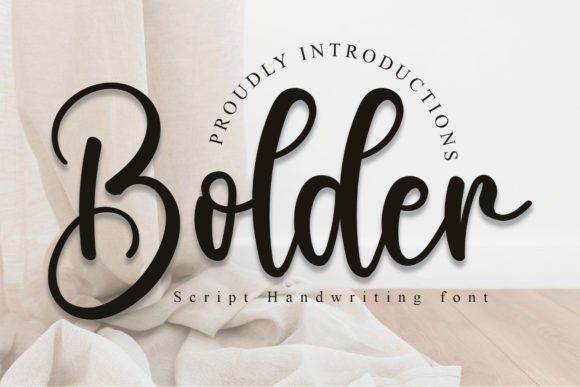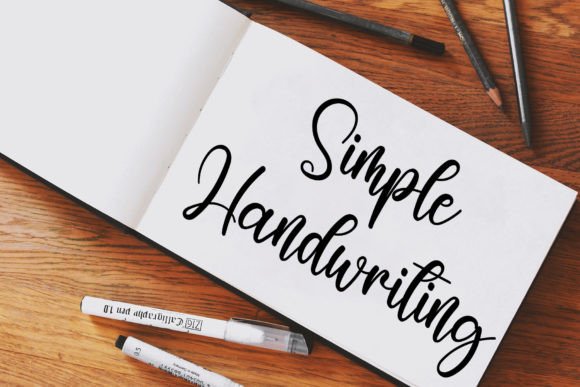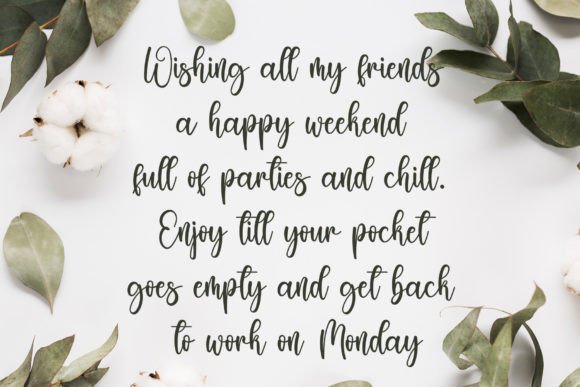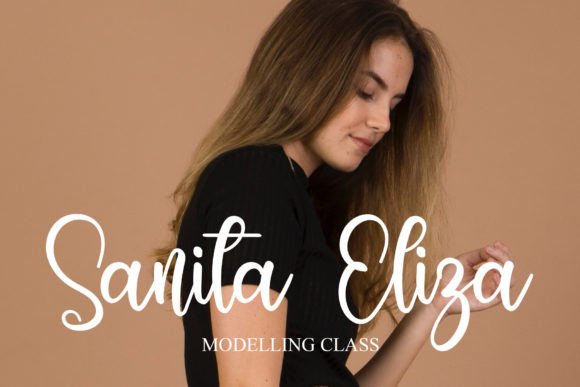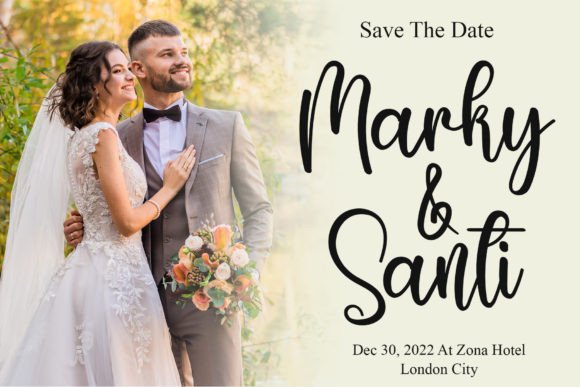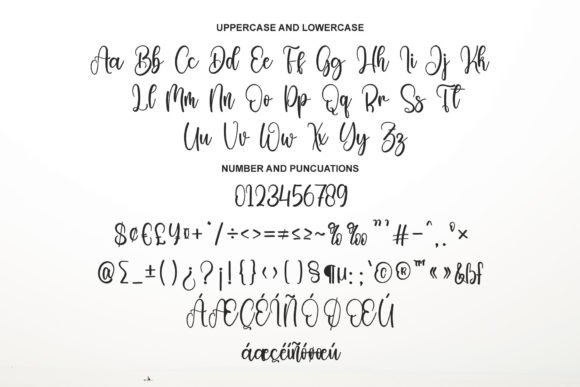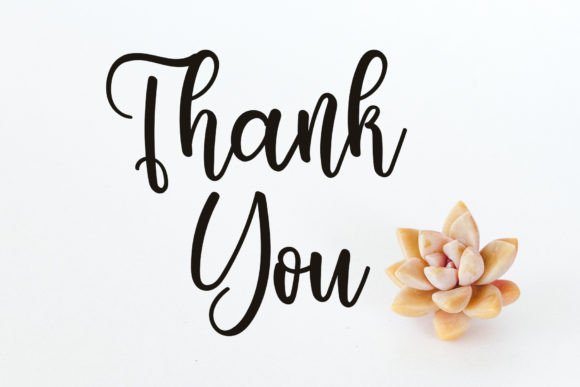
Bolder Font
About Bolder Font
Bolder font is a stylish handwritten typeface that beautifully combines a contemporary vibe with timeless classic calligraphy. Its impeccable form and well-balanced letterforms make it an excellent choice for designers seeking to enhance the elegance and visual appeal of their projects.
Stylish and Contemporary Handwriting
The charm of Bolder font lies in its modern yet classic character. Designed with varied strokes and balanced curves, it exudes a confident and polished look. This font works wonderfully for projects that require a refined handwritten style without sacrificing a contemporary feel.
Versatile Uses for Bolder Font
Bolder font suits a wide variety of creative applications, such as:
• Logo and branding design
• Wedding invitations and stationery
• Social media graphics and posts
• Packaging, posters, and promotional materials
Its flexibility allows it to seamlessly fit both digital and print projects, making it a versatile asset for any designer.
Elevating Your Designs with Bolder Font
Using Bolderfont adds sophistication and style to your work. Its handcrafted look fosters a personal connection, making your designs more memorable and unique. Whether you’re designing for an elegant brand or a special event, this font adds that perfect balance of tradition and modernity.
Summary
In summary, Bolderfont is a stylish handwritten typeface inspired by timeless calligraphy. Its contemporary and balanced design makes it ideal for logos, invitations, branding, and various other creative projects.